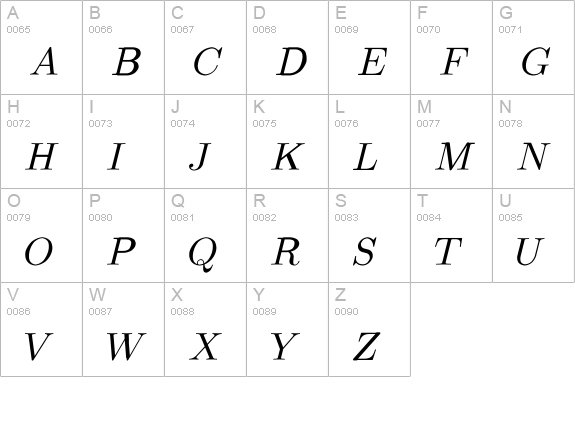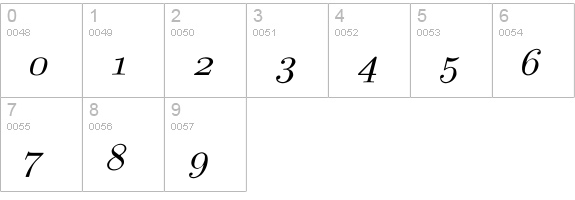
CM_Math Italic Font Details
CM_Math Italic is a distinctive, italic variant in the CM_Math typeface family \xE2\x80\x94 well suited to design and typography projects.
CM_Math Italic is a sleek and elegant font that adds a touch of sophistication to any design project. Its clean lines and stylish curves make it perfect for conveying a sense of modernity and professionalism. Whether you're creating a sleek logo, a stylish website, or a polished presentation, CM_Math Italic is sure to make a bold statement. Best of all, this font is completely free to download at FontsMarket.com. That's right - you can add this luxurious font to your collection without spending a dime. Don't miss out on this opportunity to elevate your designs with CM_Math Italic. Download it today and start creating stunning visuals that will leave a lasting impression.